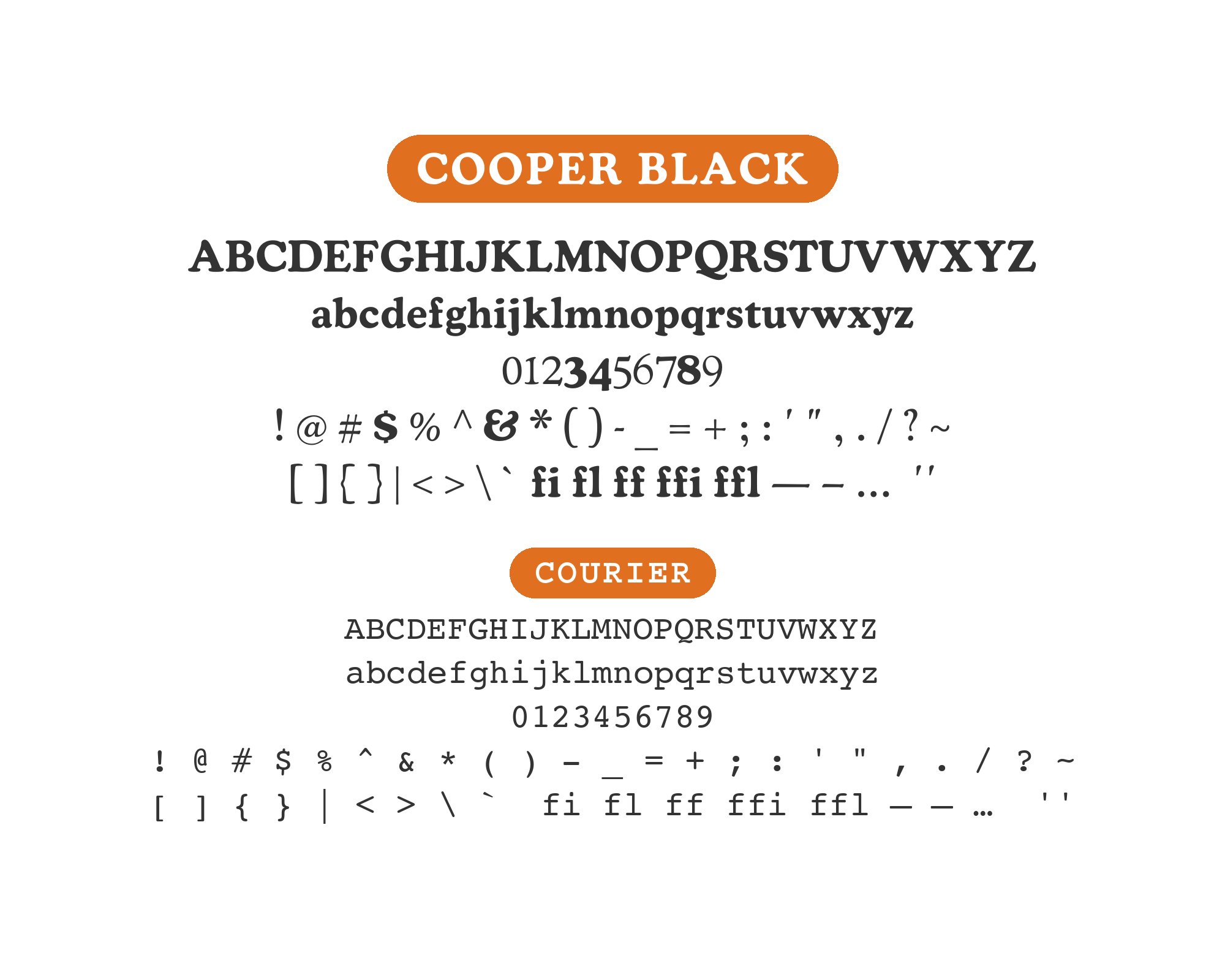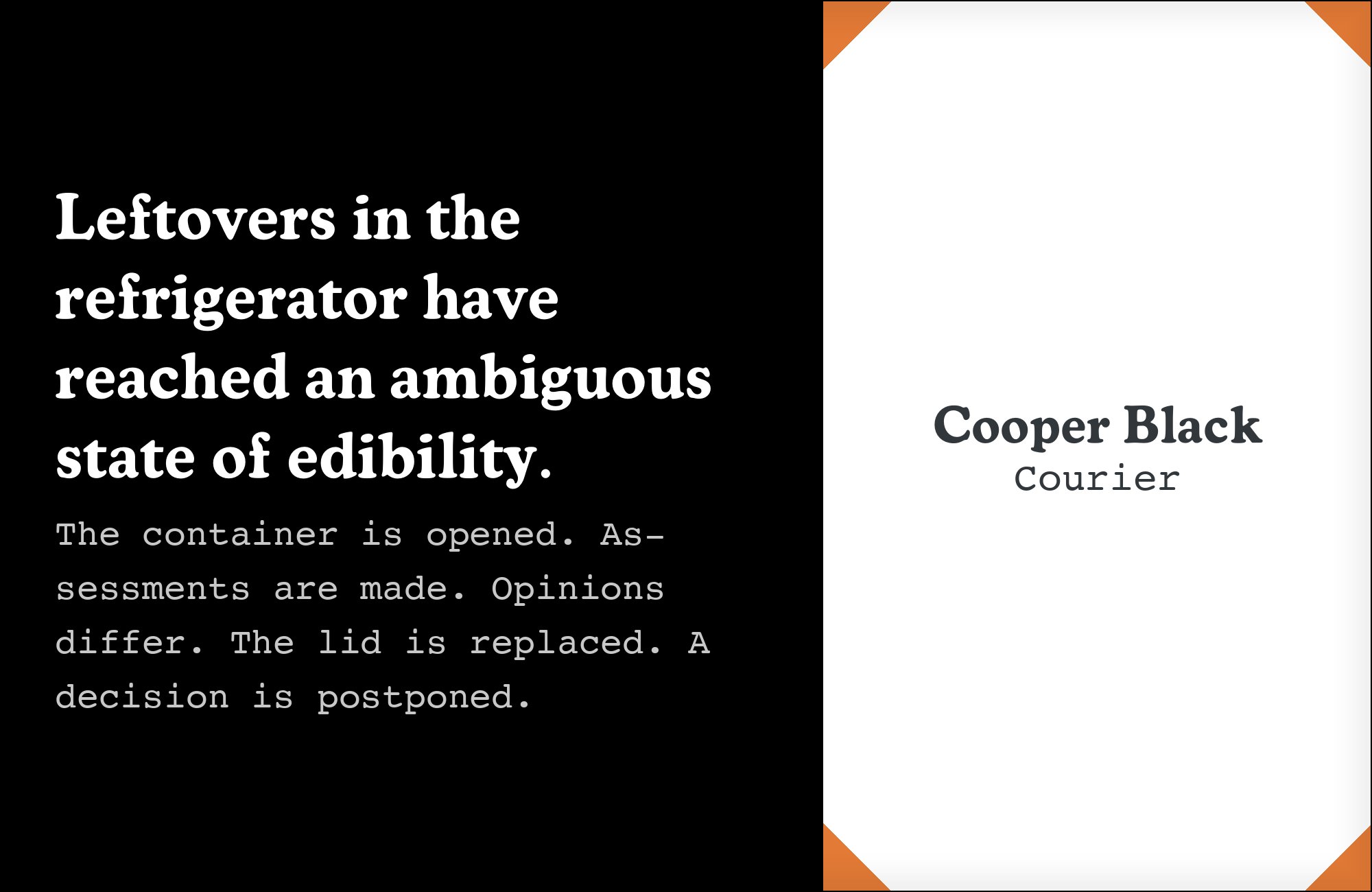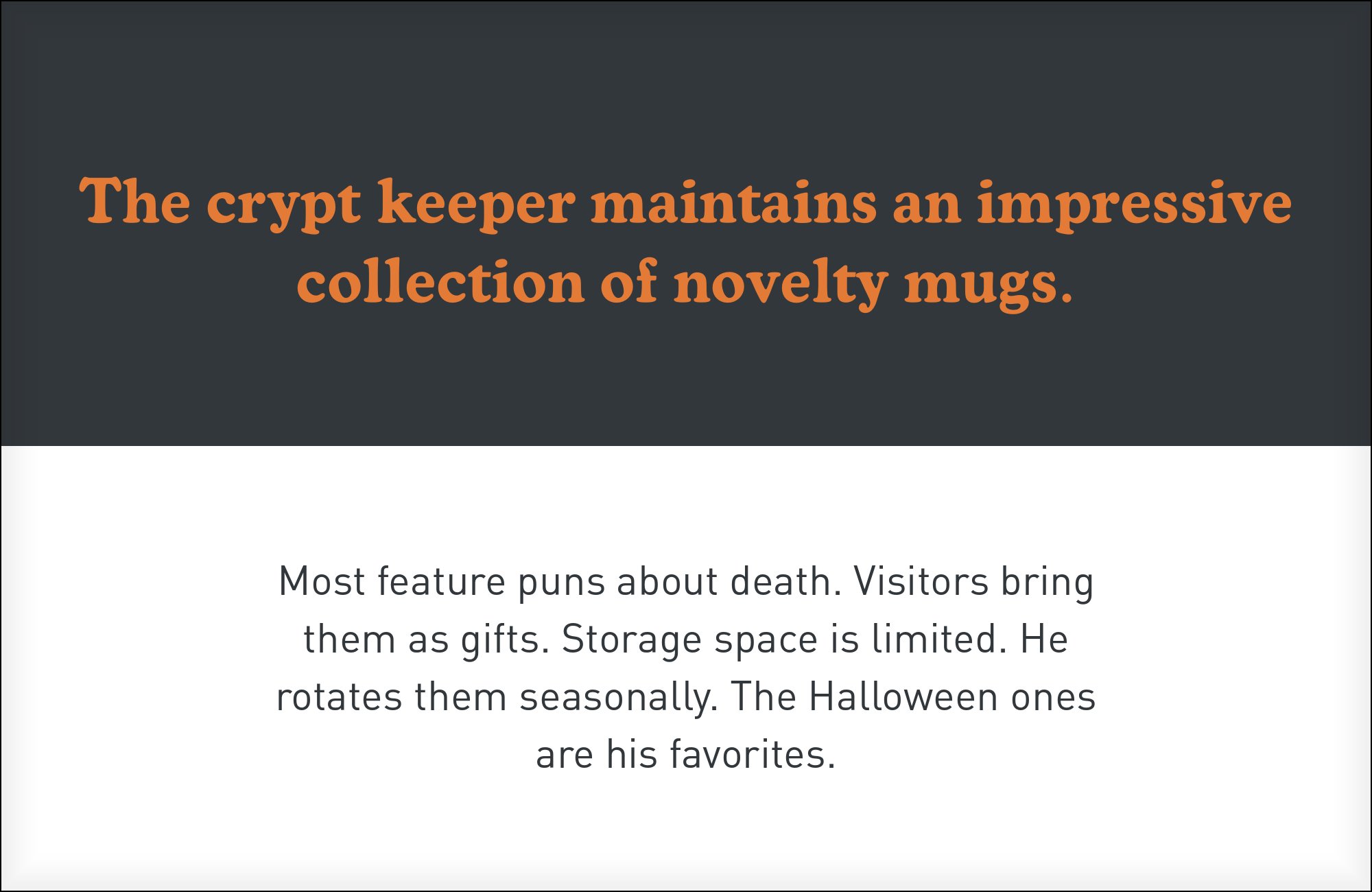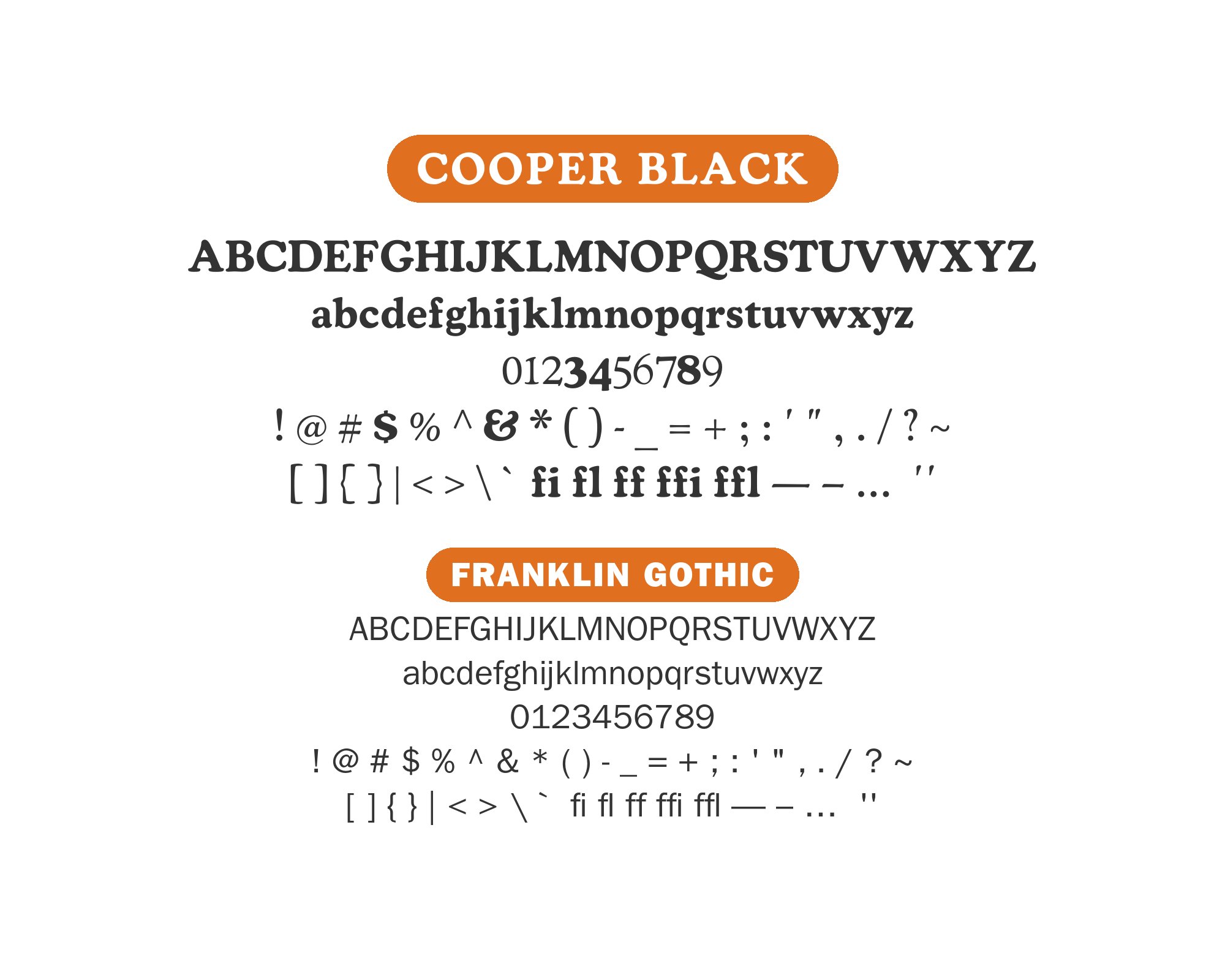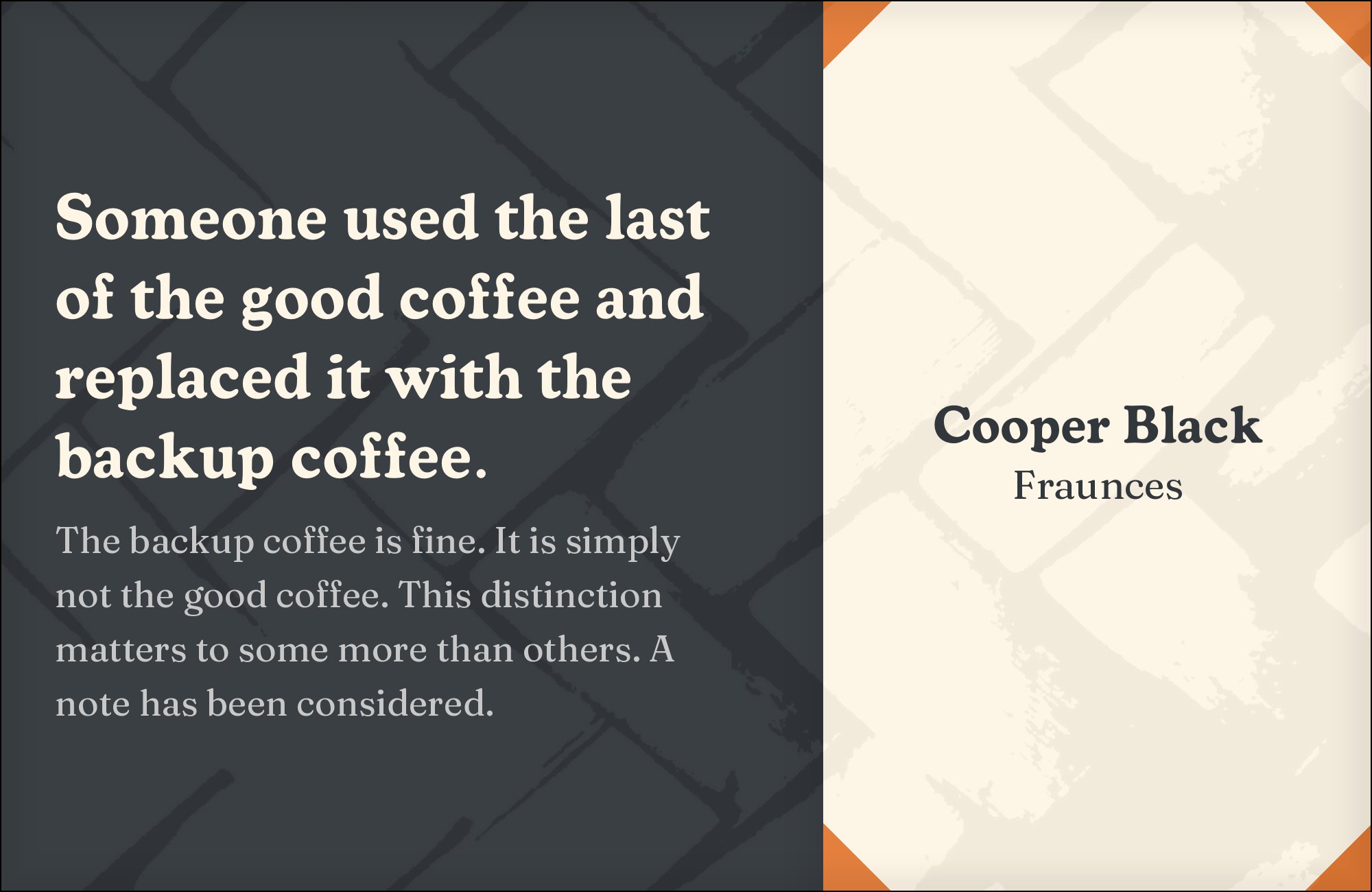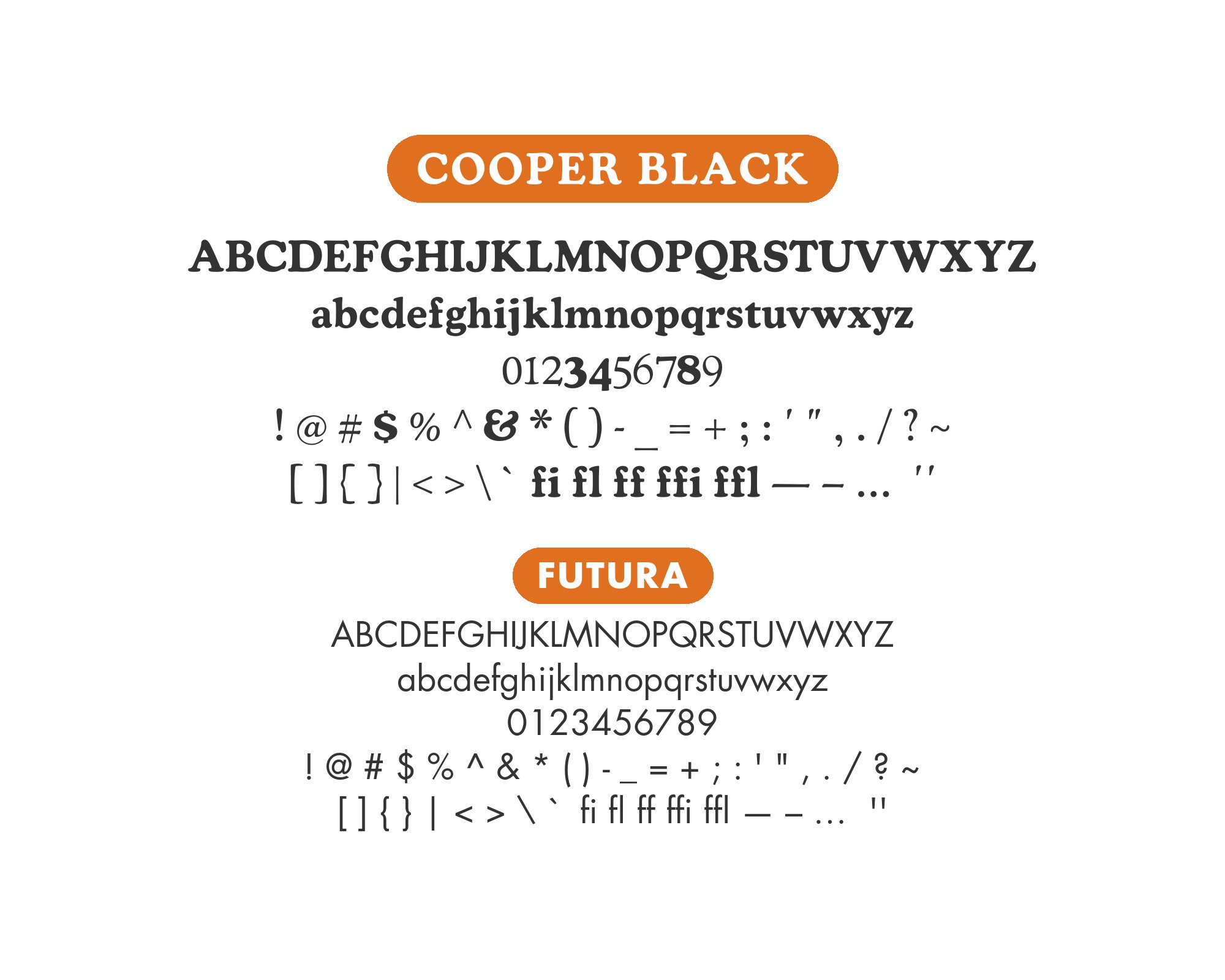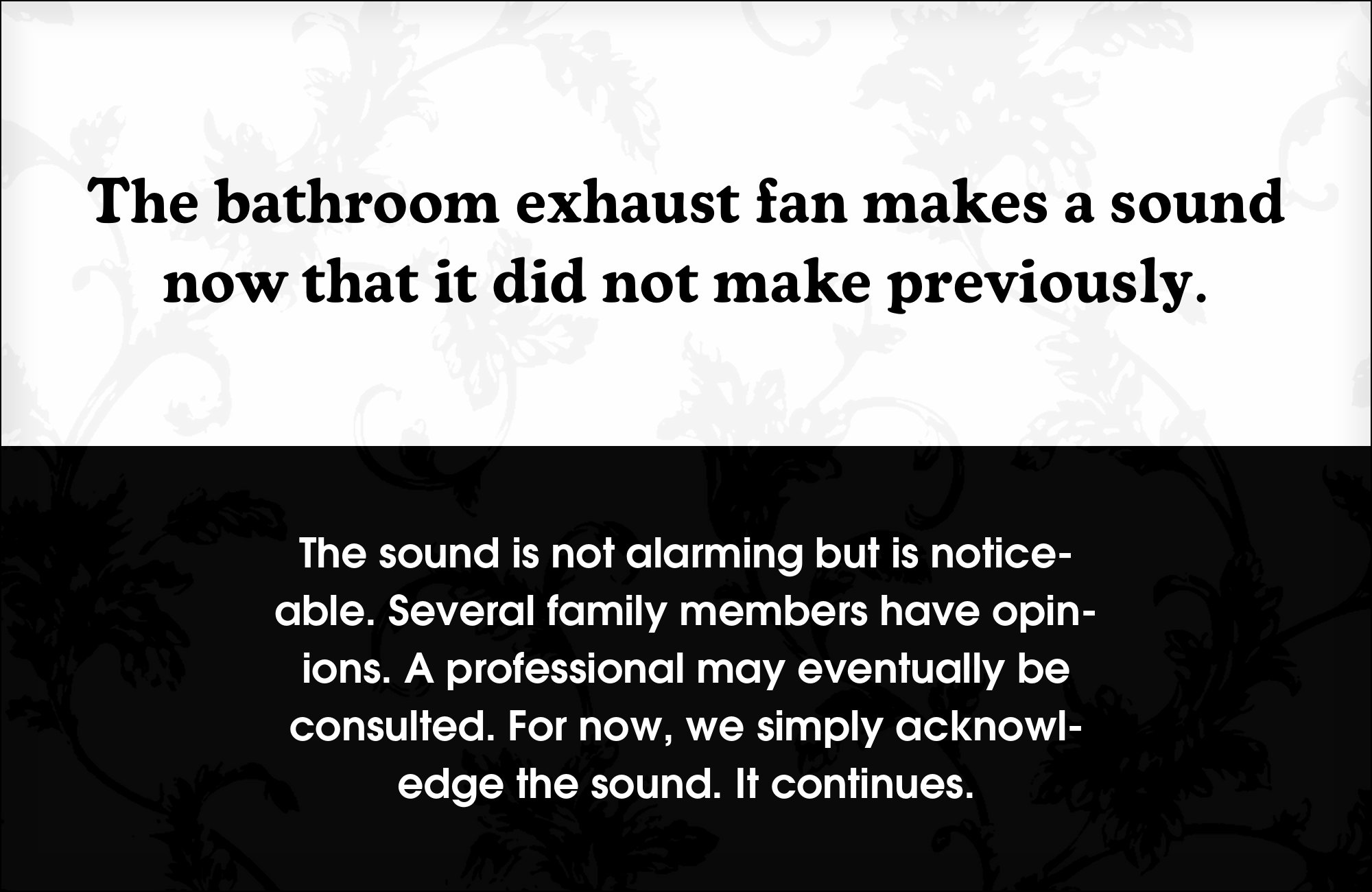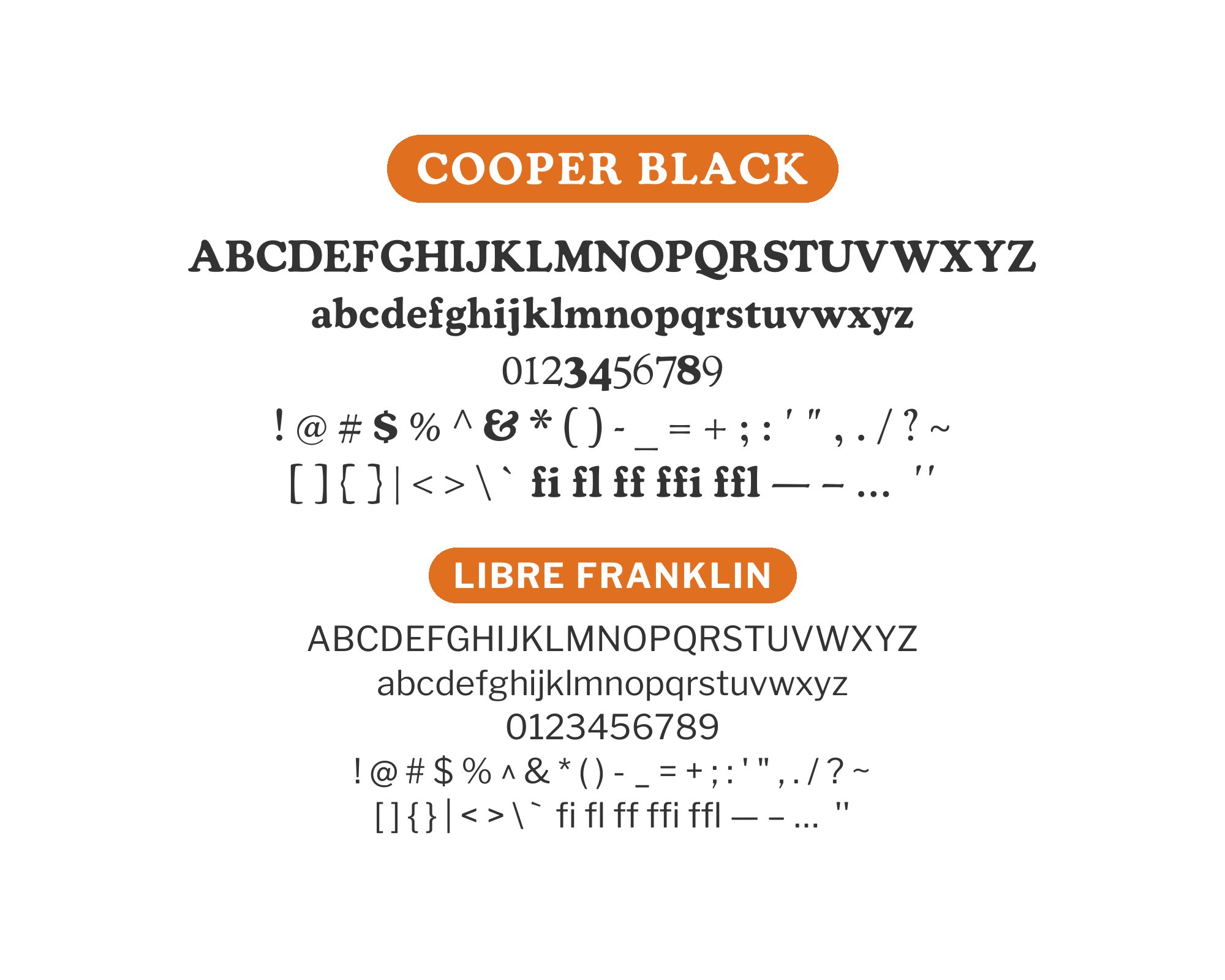
Cooper Black pairs great with Work Sans, Libre Franklin and Helvetica. All 14 pairings are shown below in real rendered specimens, with the reason each one works.
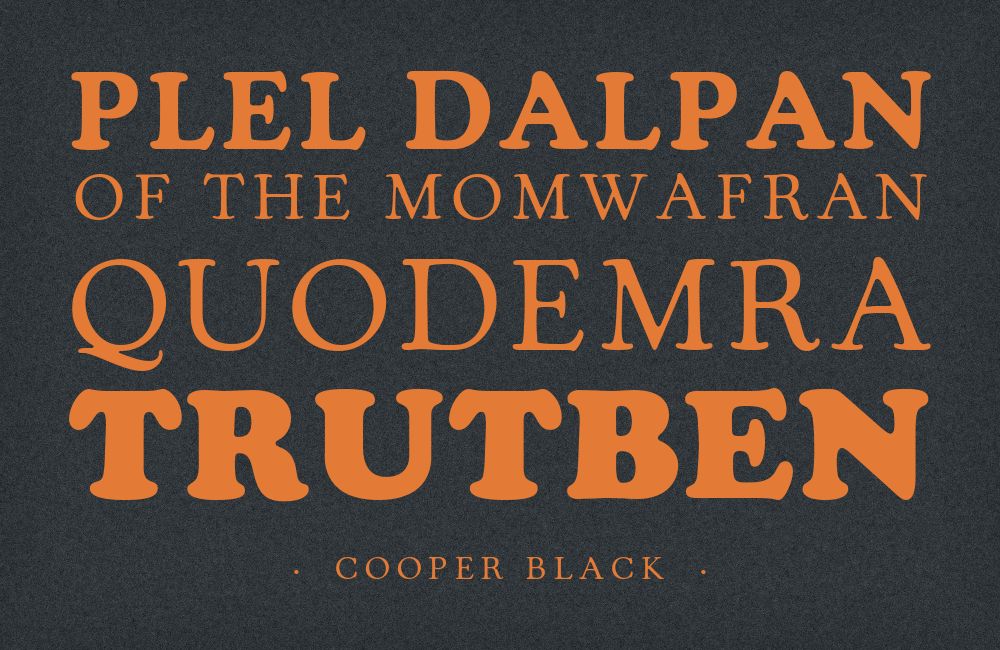
What fonts go with Cooper Black? Oswald Cooper’s 1922 ultra-bold slab exists to shout — the lowercase is there, but below display size the bulging curves clot, so every partner’s job is to do the reading Cooper Black cannot.
Oswald Cooper drew Cooper Black in 1922 as the ultra-bold anchor of his Cooper Old Style family, and it has spent a century swinging between fashionable and forgotten. Every stroke bulges rather than tapers: the serifs are soft, blunted slabs, the bowls balloon out past where a rational structure would stop, and there is almost no thin stroke anywhere in the alphabet to relieve the weight. The face was used extensively in 1970s graphic design, and its soft shapes still lend headlines a warmth that feels handmade rather than typeset.
Pairing Cooper Black is really one decision: which typeface will do the actual reading. Cooper Black has no size where paragraphs work; set it below display and the bulging curves clot together. Most combinations here give Cooper Black the headline or wordmark and let its partner carry the smaller text. One reverses the display hierarchy, putting Cooper Black in a short accent beneath a more formal headline. The real variable is how that partner relates to Cooper’s calligraphic roundness: some supply flat, structural contrast, others quietly extend the same warm, rounded lineage. Here are the fonts that pair well with Cooper Black.
1. Work Sans
Work Sans is a plain, humanist grotesque drawn for interface and body text, with even weight and no calligraphic trace of its own. That neutrality is exactly the job description here: Typewolf records the Glassy project using Cooper and Work Sans, and Work Sans never needs to compete for attention. It is free on Google Fonts, licensed for nothing, and stays legible well down into caption sizes where Cooper Black cannot follow. Set it at a true paragraph size and let Cooper Black stay confined to short display lines above it.
2. Libre Franklin
Libre Franklin is a free, open digital revival of the historic Franklin Gothic family, inheriting that face’s flat-footed, square-shouldered structure without any licensing questions. Typewolf records the Covid Good News project using Cooper and Libre Franklin: the grotesque discipline reads as pure structure beside Cooper’s soft, chatty curves, and because Libre Franklin ships free on Google Fonts the combination costs nothing to deploy. It holds up at body-copy sizes where Cooper Black cannot follow, and its range of weights gives a design system room for subheads and captions Cooper Black should never attempt.
3. Helvetica
Max Miedinger and Eduard Hoffmann’s Helvetica (Haas, 1957; Linotype 1960) has no strong personality to assert, which makes it the standard escape hatch for pairing with any characterful display face. Typewolf records The Strategist using Cooper and Helvetica among its typefaces; Helvetica’s even strokes and neutral proportions give Cooper’s bulging curves room to speak. When a project needs a familiar body face, Helvetica, or a metric-compatible substitute like Arial, is a dependable choice underneath a Cooper Black headline. Set small, it disappears into pure legibility, leaving Cooper Black as the only voice with any character.
Times New Roman is a familiar body serif, and setting it beneath Cooper Black turns the hierarchy into pure contrast: a reserved reading face against an exuberant display face. A 1967 retrospective catalogue in the Fonts In Use archive runs exactly this split, Cooper Black shouting the title while Times New Roman does the actual reading below it. Reserve it for body copy and captions; it shares nothing with Cooper Black structurally, which is the entire point.
5. Franklin Gothic
Franklin Gothic is flat-footed, square and entirely opinion-free where Cooper Black is soft, rounded and chatty, and that gap is what makes the pairing land. It shows up in the 1981 title sequence of the British sitcom Only Fools and Horses, and a graphic designer on Quora recommends it for Cooper Black too. Franklin Gothic ships with many Windows and Office installations and is otherwise available through Adobe Fonts, so obtaining it rarely requires a fresh purchase. Use it for structural elements: navigation, labels, and any body copy that needs to read as neutral rather than warm.
6. Futura
Futura is built from circles, squares and triangles with near-geometric perfection, putting it at the opposite end of type-making from Cooper’s hand-lettered bulges. The easyGroup brand guide reserves Cooper Black for business names. It assigns Futura Book to body copy. Futura Bold takes headlines. Futura ships with macOS, so the combination is easy to try on Apple platforms. For a simpler layout, use Cooper Black for a brief display mark and Futura for the reading text.
7. Minion
Minion is a workhorse text serif with essentially no opinions of its own, which is precisely what a book designer of twenty years’ experience recommended for carrying long copy beneath Cooper Black’s “extreme weight and eccentricity.” It has none of Cooper’s calligraphic bulk and none of its own competing personality — just even color, moderate contrast and comfortable spacing at paragraph sizes. Minion is included with every Adobe Fonts subscription, so Creative Cloud users can activate it at no additional cost. Use it for any setting where a reader is expected to stay past the headline: catalogues, packaging copy, long captions.
Test any of these combinations at the sizes you will actually publish, not in a specimen. Cooper Black holds up as a short headline and falls apart as body copy, and the partner chosen above should be judged the same way: set real copy, at real size, and see whether the reader ever notices the seam.